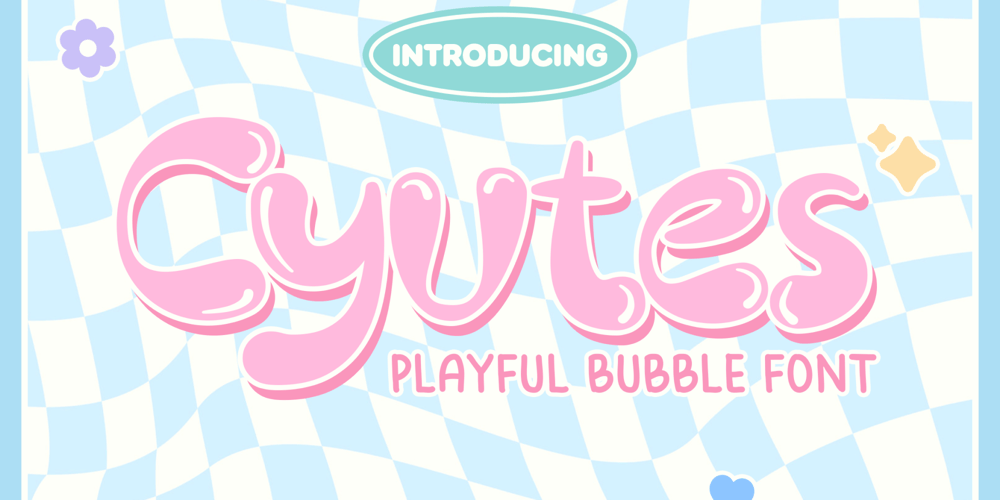
Cyutes
Cyutes font
Cyutes Font Family was designed by Heri Imanudin and published by Krafted. Cyutes contains 1 styles and family package options. Add a splash of fun and whimsy to your designs!Introducing Cyutes – A Playful Bubble Font.Transform your brand’s visual identity with the lively and charming style of this font. Its bubbly characters are perfect for children’s books, playful branding, or any project that needs a touch of lightheartedness. Enjoy!